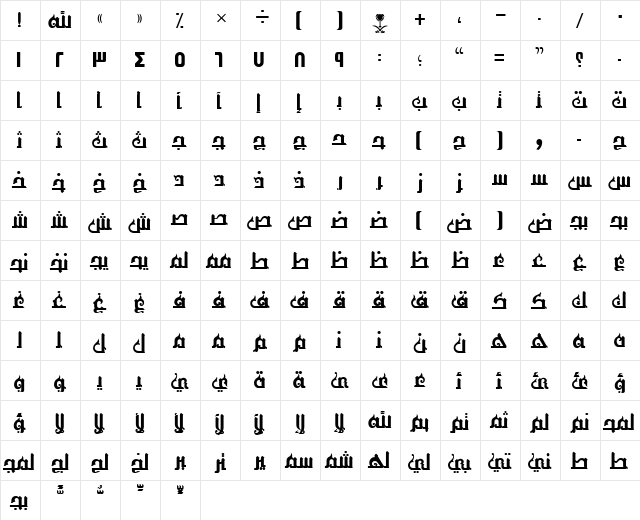
AYM Thghr 1 S_U normal. Normal Font Preview
AYM Thghr 1 S_U normal. Normal
Design Context for AYM Thghr 1 S_U normal. Typeface
AYM Thghr 1 S_U normal. offers clean, dependable letterforms without strong stylistic allegiance, making it a practical choice for designers who need flexibility.